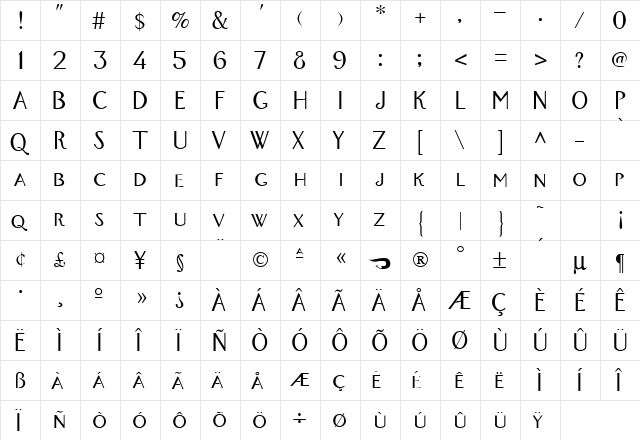
Get Me A Doctor 2 Regular
Design Context for Get Me A Doctor 2 Typeface
Get Me A Doctor 2 is a composed and adaptable typeface that performs quietly and consistently across a wide range of design contexts.